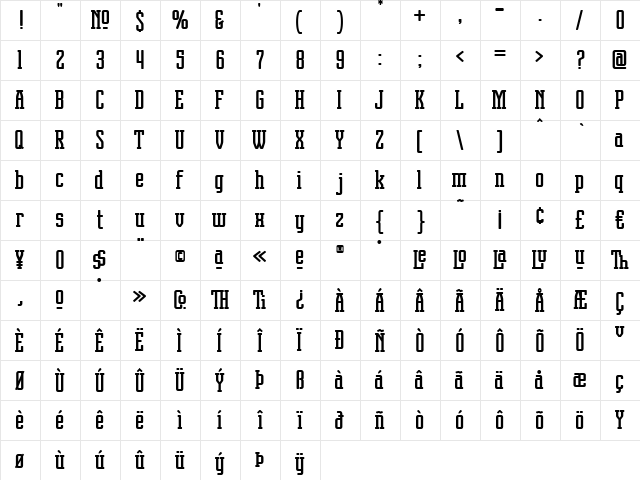
LHF Logomotive Regular
Design Context for LHF Logomotive Typeface
LHF Logomotive offers clean, dependable letterforms without strong stylistic allegiance, making it a practical choice for designers who need flexibility.
Pro Tip: Use LHF Logomotive in both headline and body roles to test its range before committing to a single application.